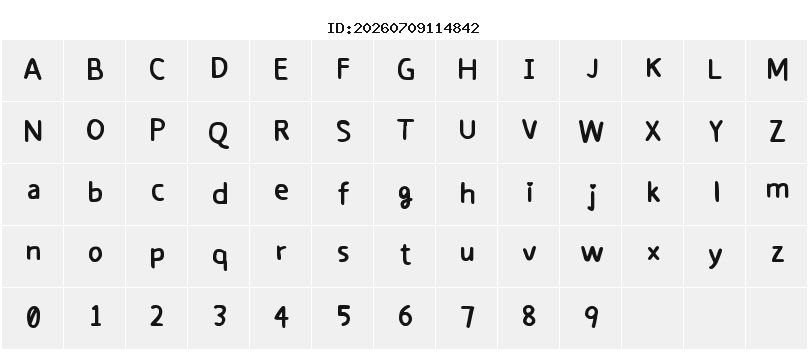
• Font Name: 拾陆字濑户2.0-1
• Full Font Name: 拾陆字濑户2.0-1 Bold
• Designer: shiluwords
About 拾陆字濑户2.0-1.ttf
拾陆字濑户2.0-1.ttf is a modern, elegant sans-serif font designed for ultimate readability and visual harmony. Perfect for branding, headlines, web design, and print materials.